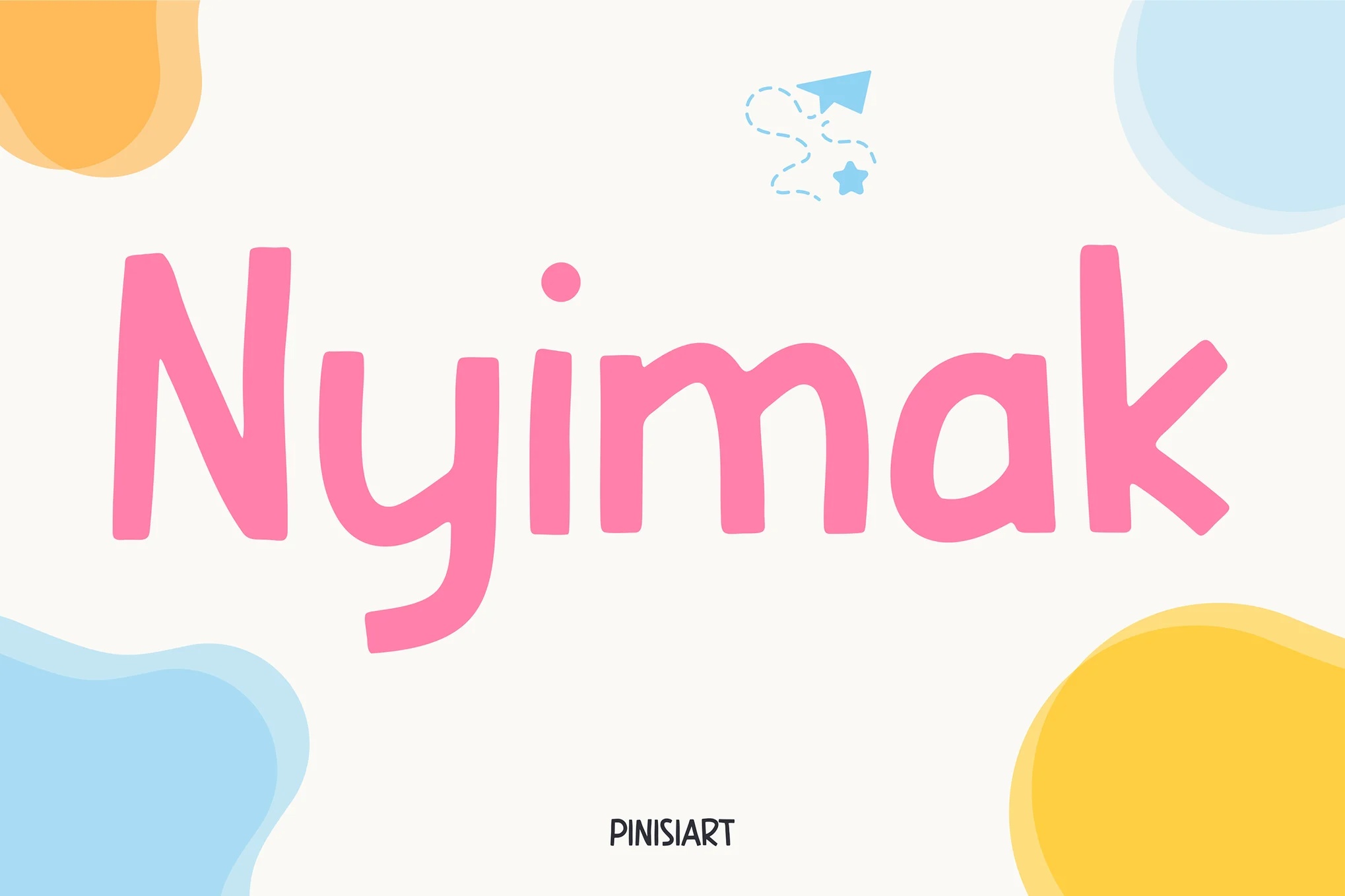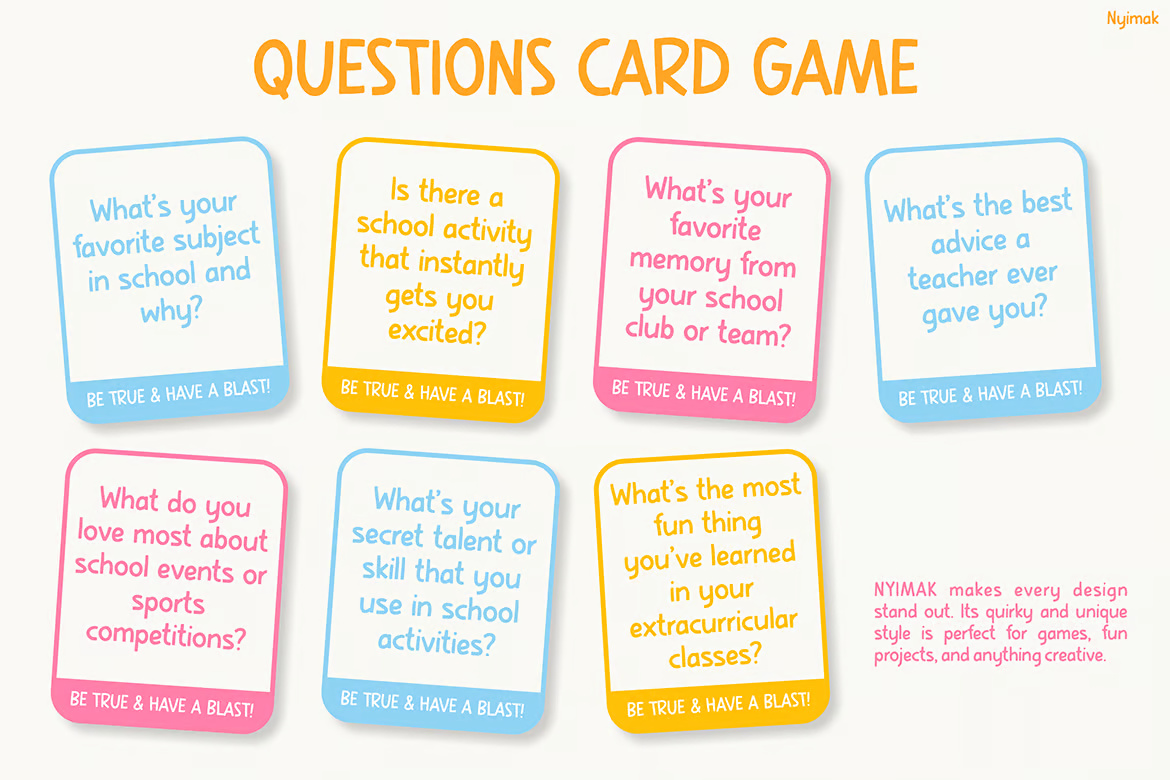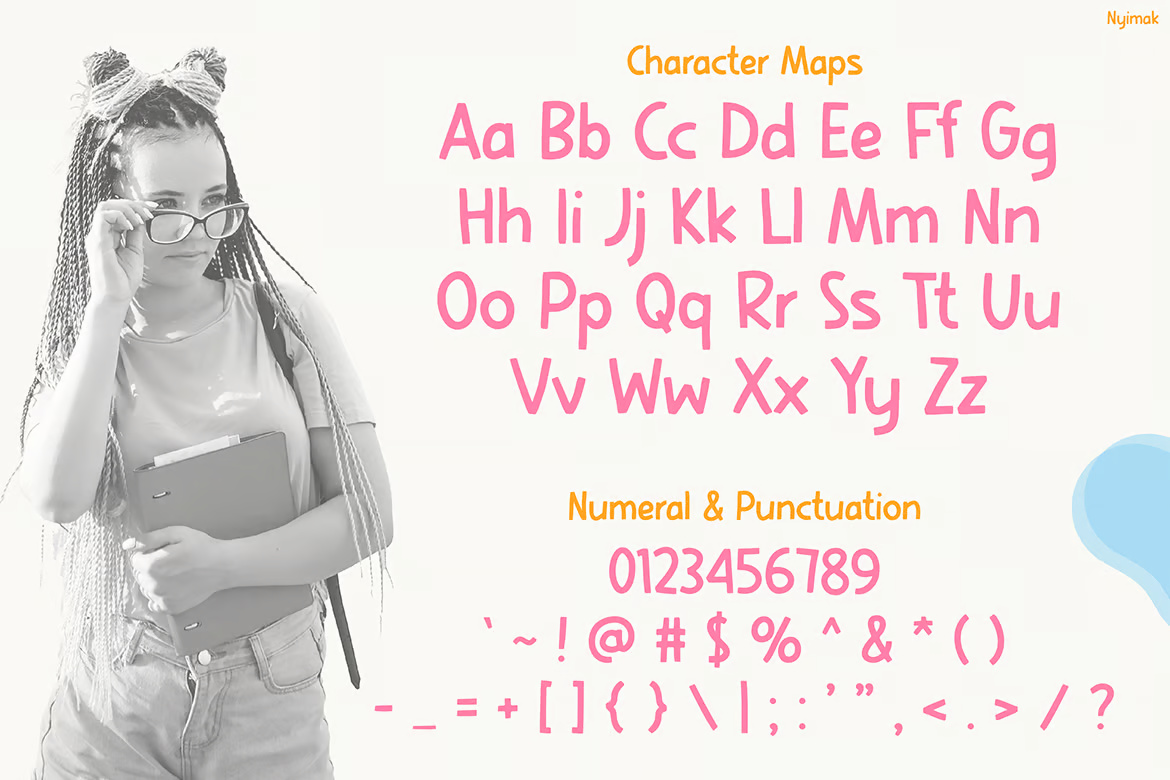
Kids Book Font – Nyimak
Nyimak is a soft, rounded handwritten sans-serif typeface that’s perfect for young readers and educational materials. Its smooth curves and playful structure give it an approachable personality, while maintaining clarity for early reading development.
Designed with kids, parents, and teachers in mind, Nyimak works beautifully across children’s books, classroom posters, learning apps, activity sheets, and school branding. Its easygoing rhythm and gentle contrast make it especially effective in environments that need to feel safe, friendly, and inspiring.
Kids Book Sans-Serif Font – Nyimak
Kids Book Font - Nyimak